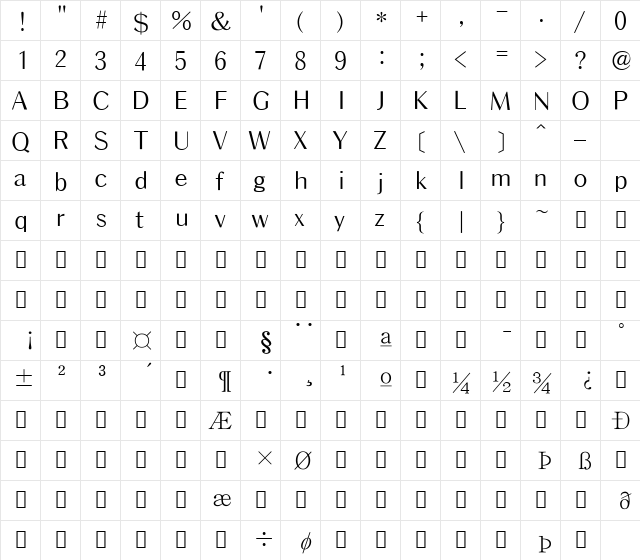
HYSinGraphic-Medium Regular Font Preview
HYSinGraphic-Medium Regular
Design Context for HYSinGraphic-Medium Typeface
HYSinGraphic-Medium takes a measured approach to typography — its balanced proportions and neutral character make it a reliable workhorse for both digital and print work.
Pro Tip: Use HYSinGraphic-Medium in both headline and body roles to test its range before committing to a single application.